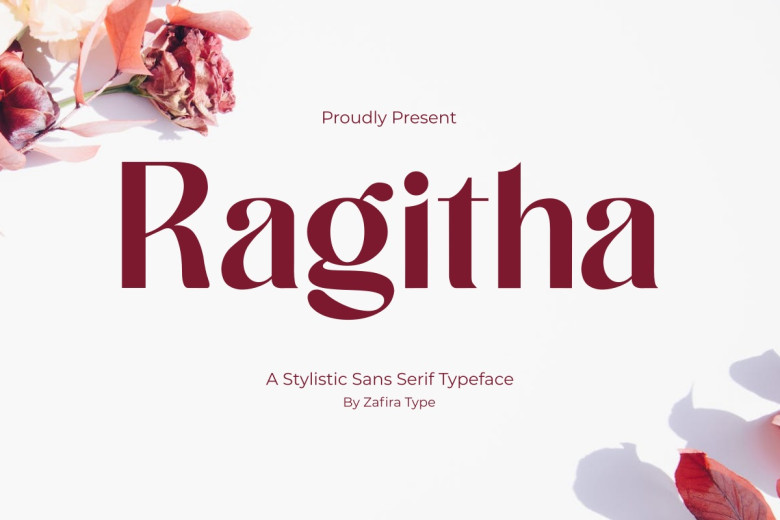
Ragitha Font
Ragitha is an original and contemporary sans serif font that features alternative ligatures and other enhancements. Ragitha stands out as an impressive multi-functional font due to its elegant, contemporary, stylish style that includes beautiful curves for creating designs with unique characteristics and sophisticated impressions.
Ragitha includes several alternative ligatures which enable users to craft stunning designs. Ragitha font can be used in various design tasks including logo, design, brand identities, product branding web design advertisements flyers etc.
Ragitha Sans Serif Font